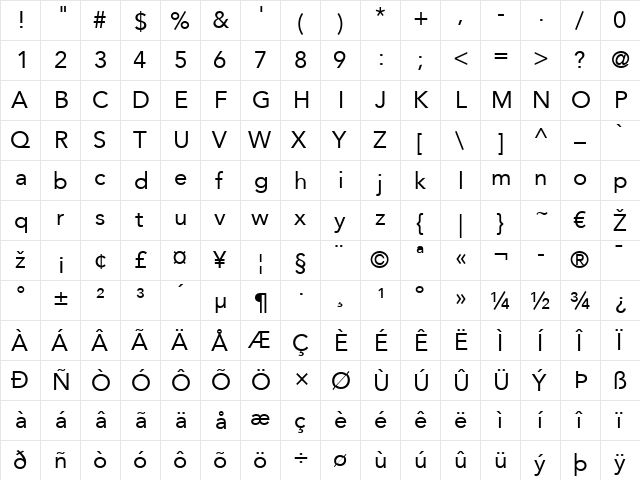
Avenir LT 55 Roman Regular
Design Context for Avenir LT 55 Roman Typeface
Avenir LT 55 Roman is a composed and adaptable typeface that performs quietly and consistently across a wide range of design contexts. Its slender proportions lend an understated elegance to any composition.
Pro Tip: Pair Avenir LT 55 Roman with a font of contrasting weight or personality to build a more expressive typographic hierarchy.